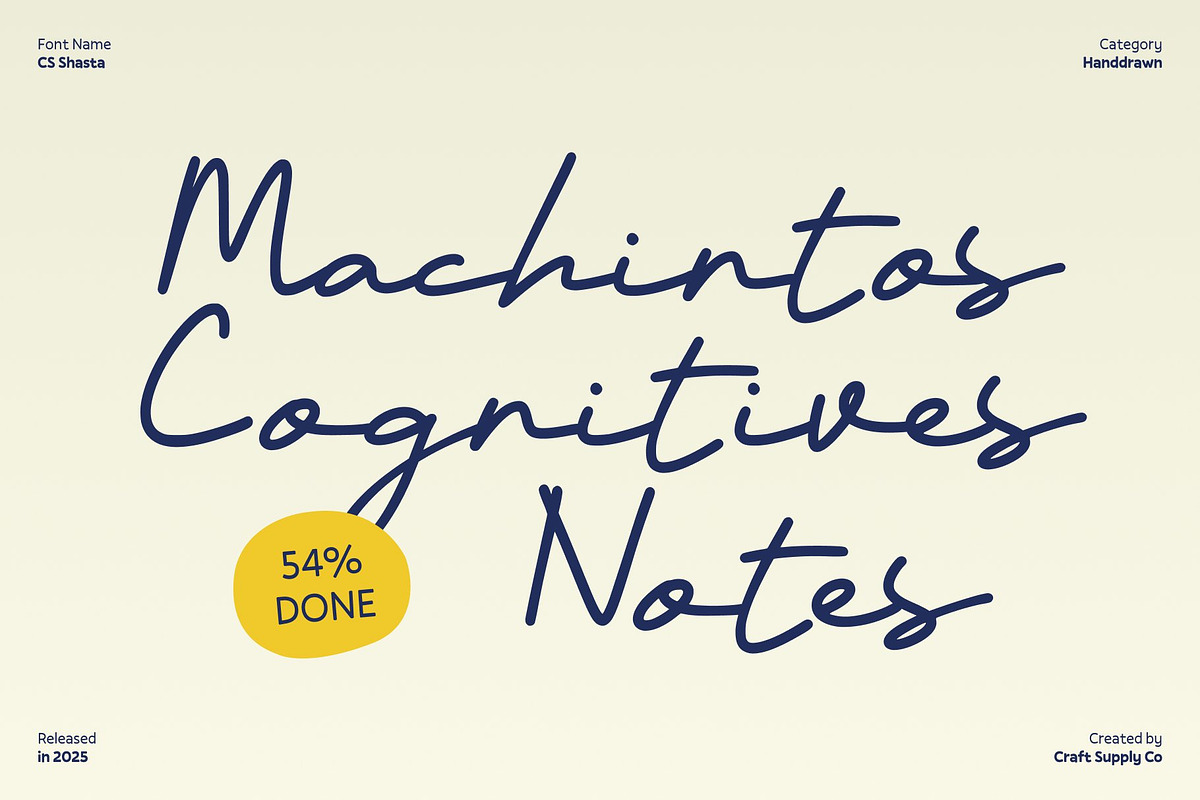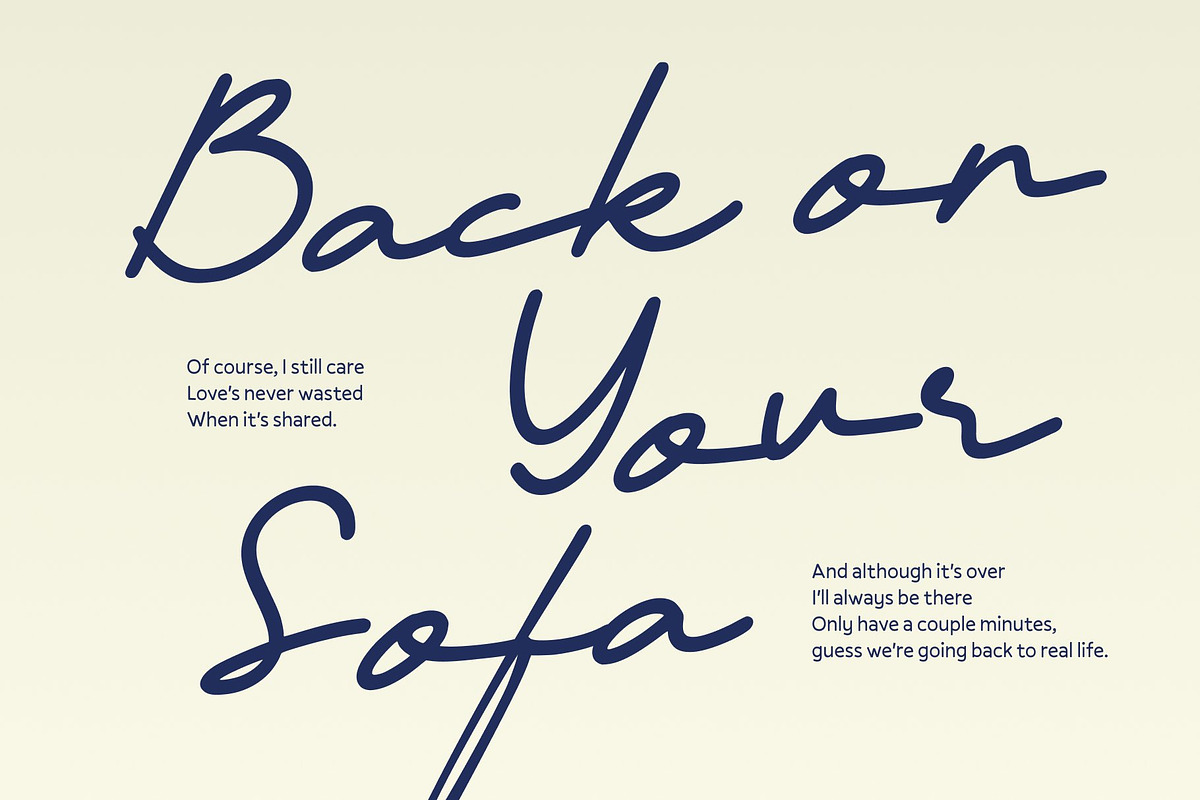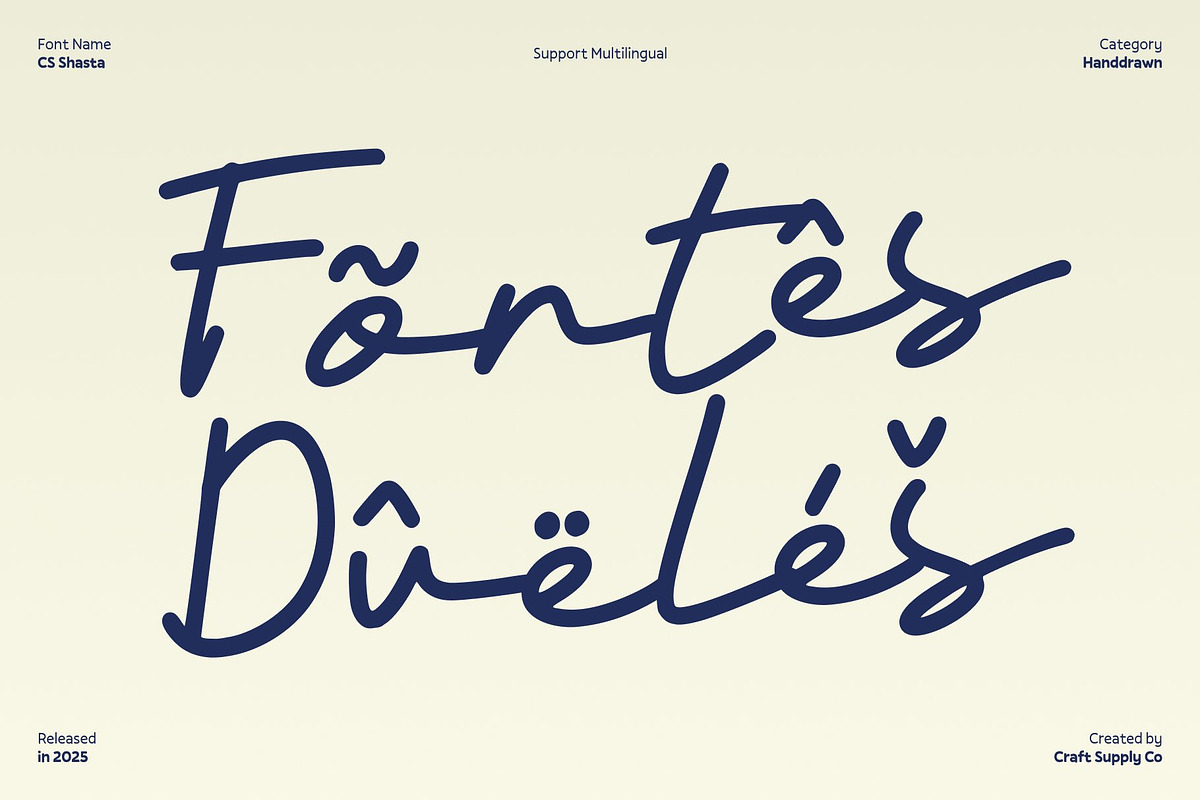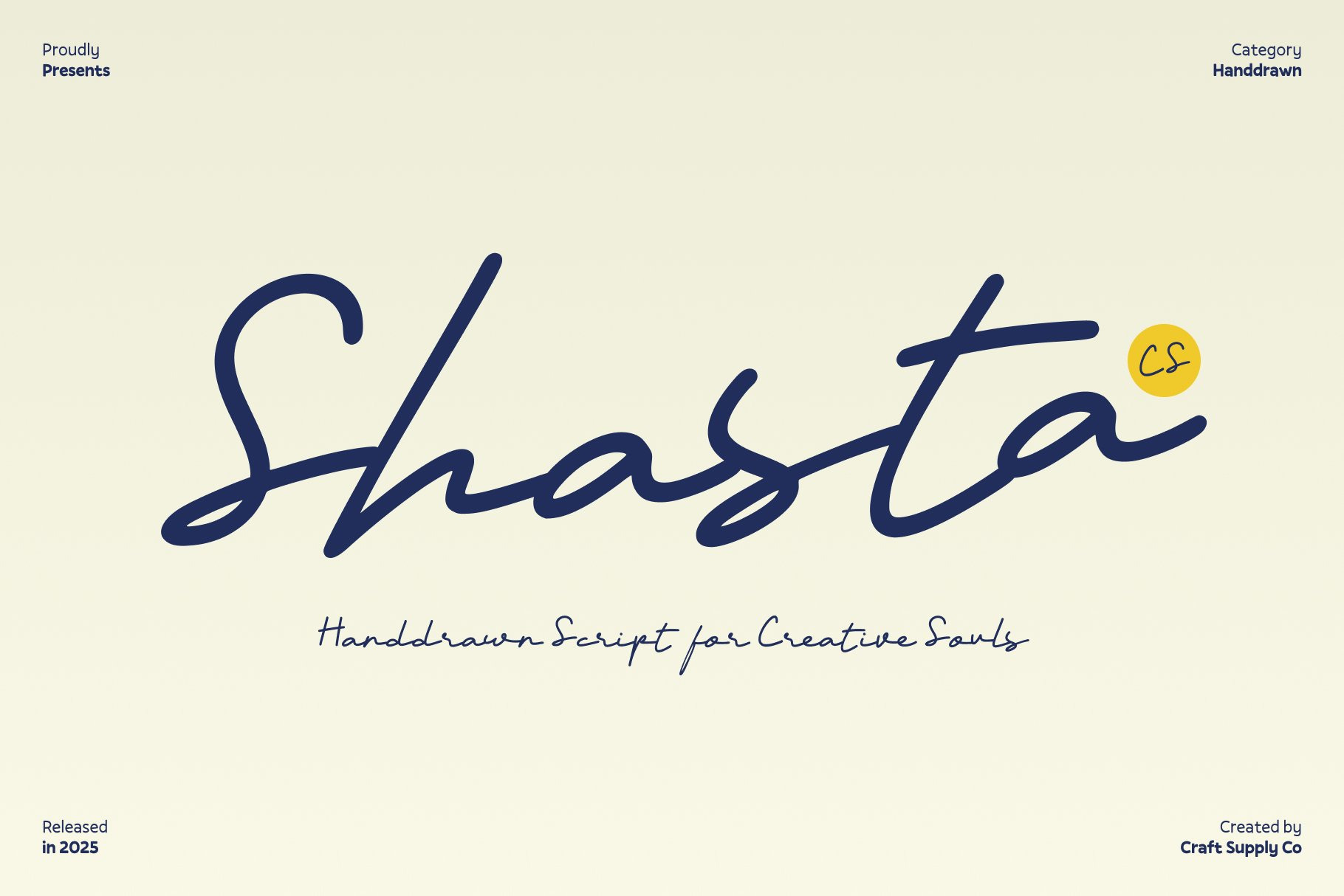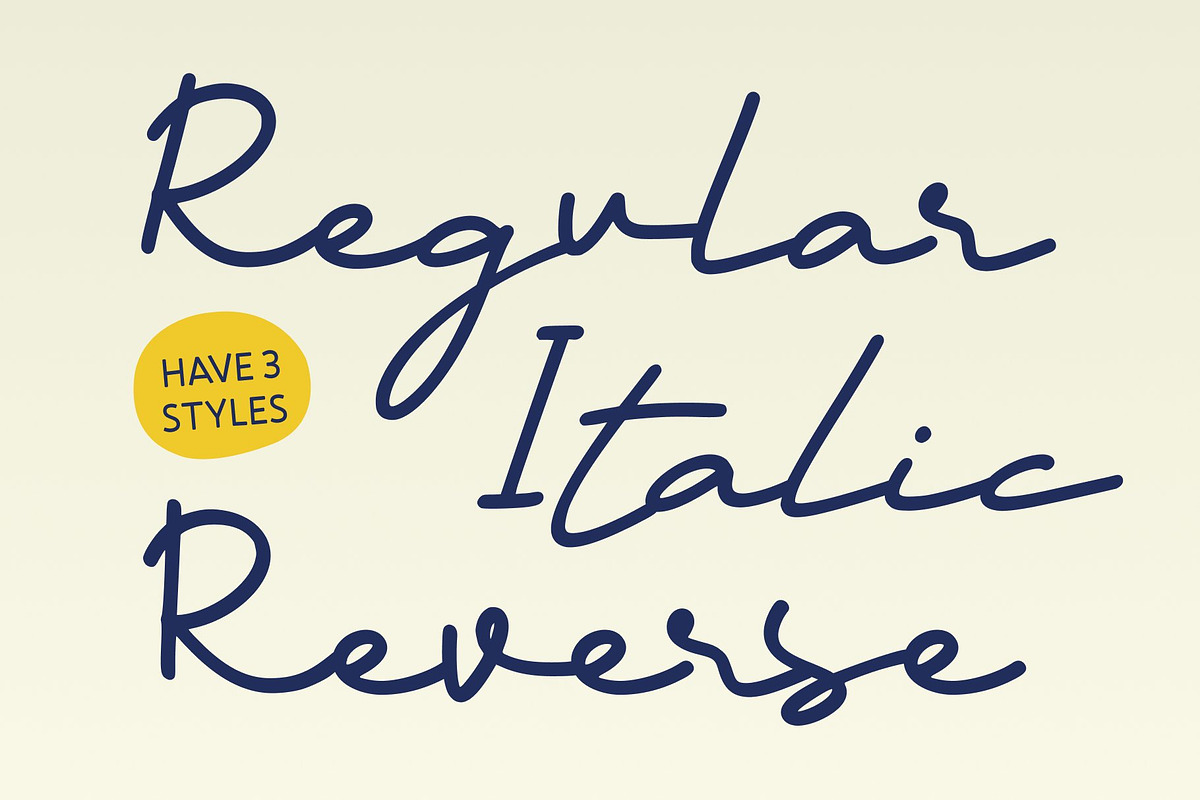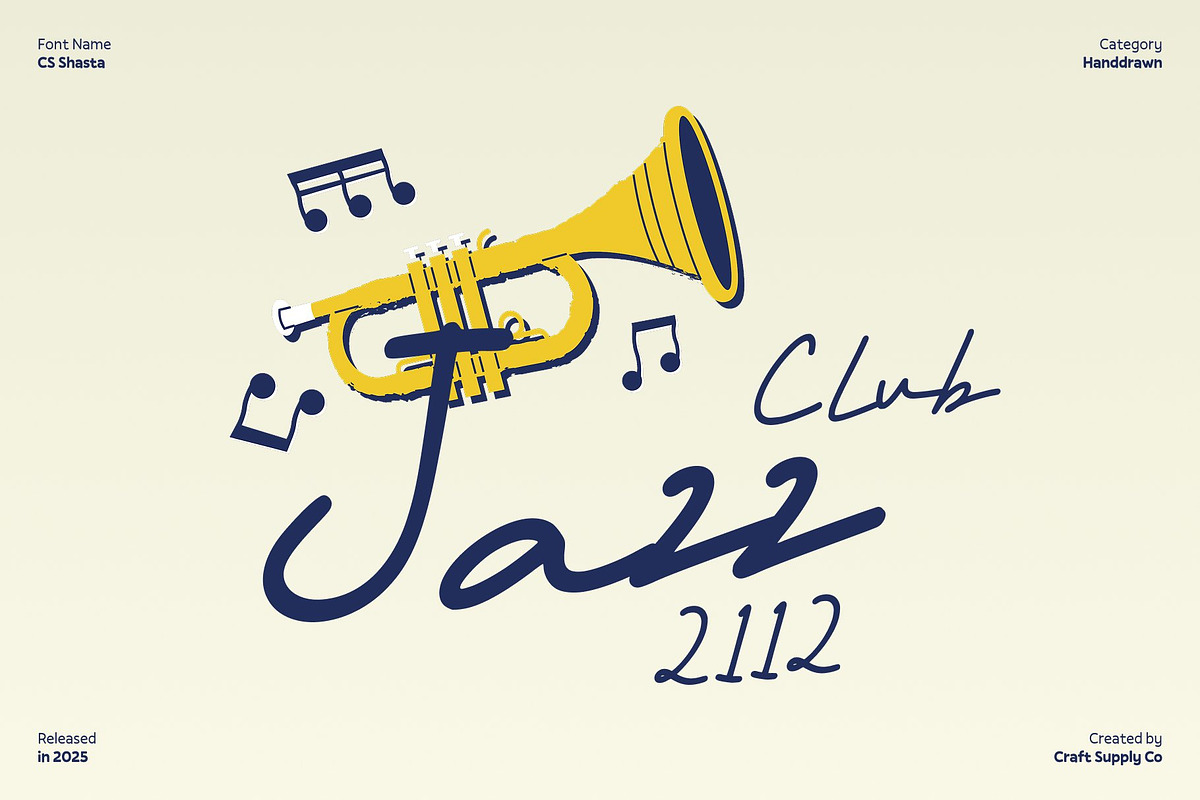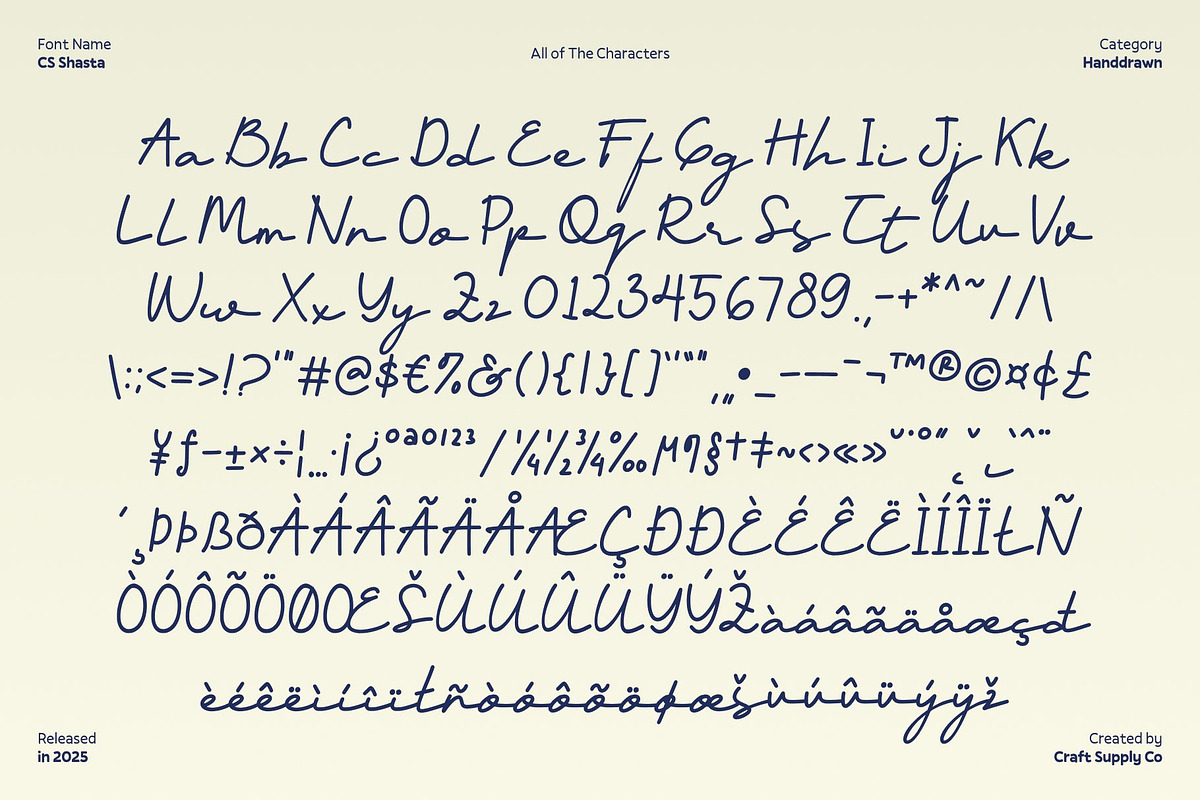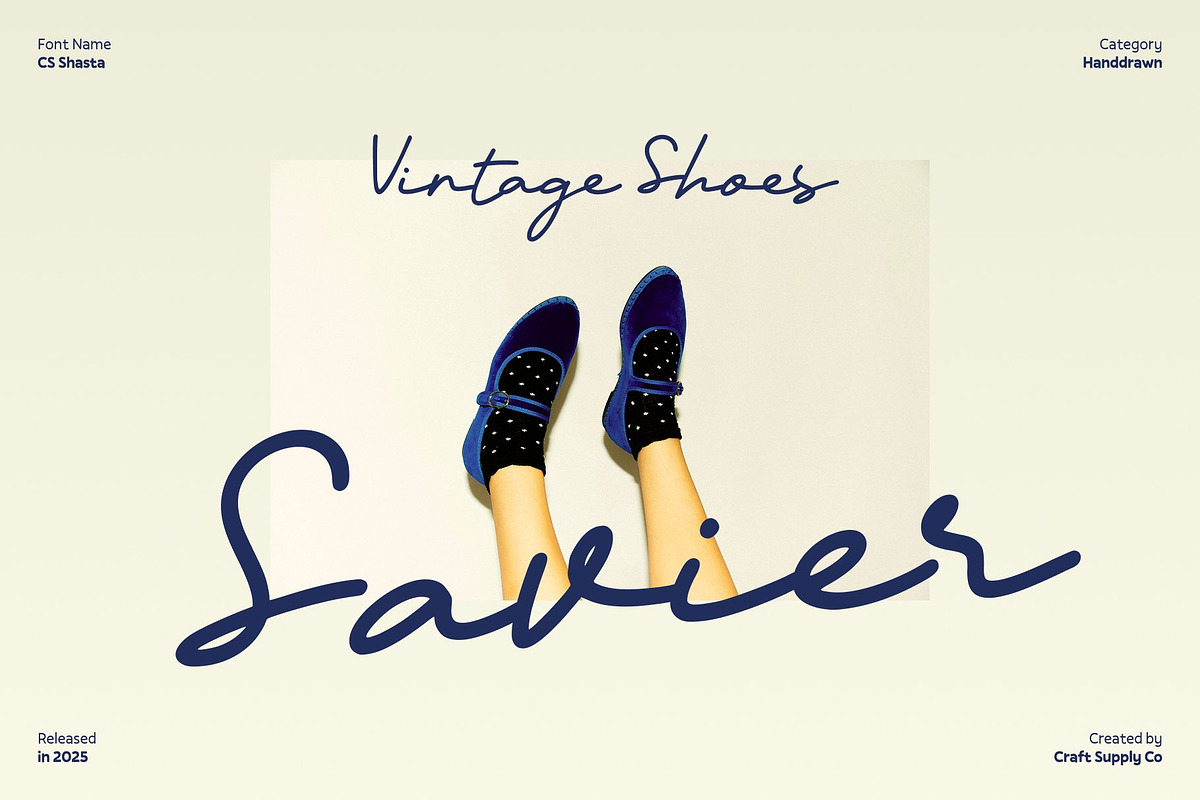
CS Shasta – Handwritten Script Font
CS Shasta – Handwritten Script Font with Signature Style
Personal Handwritten Elegance This is a handwritten script font designed to capture the natural flow and charm of personal signatures. Its smooth, fluid strokes convey authenticity and sophistication, making every design feel unique and handcrafted. This font is perfect for projects that require a personal, refined touch.
Signature Style for Distinctive Identity Inspired by elegant handwriting, this font features graceful curves and flowing lines that create a memorable and distinctive look. Each character is carefully crafted to mimic the effortless style of a real signature, giving your designs a sense of individuality and personality.
Versatile for Luxury and Creative Projects Whether used for logos, branding, luxury invitations, or editorial highlights, elevates designs with a personal and professional aesthetic. Its refined script style ensures a polished and high-end impression while maintaining warmth and approachability.
Ideal for Branding, Invitations, and Logos This font brings a unique, handcrafted elegance to any project. Perfect for fashion branding, premium stationery, creative packaging, or social media visuals, this handwritten script font balances style, sophistication, and personal flair, helping your designs stand out with a luxurious, signature-worthy identity.
- CS Shasta Regular
- CS Shasta Italic
- CS Shasta Reverse Italic